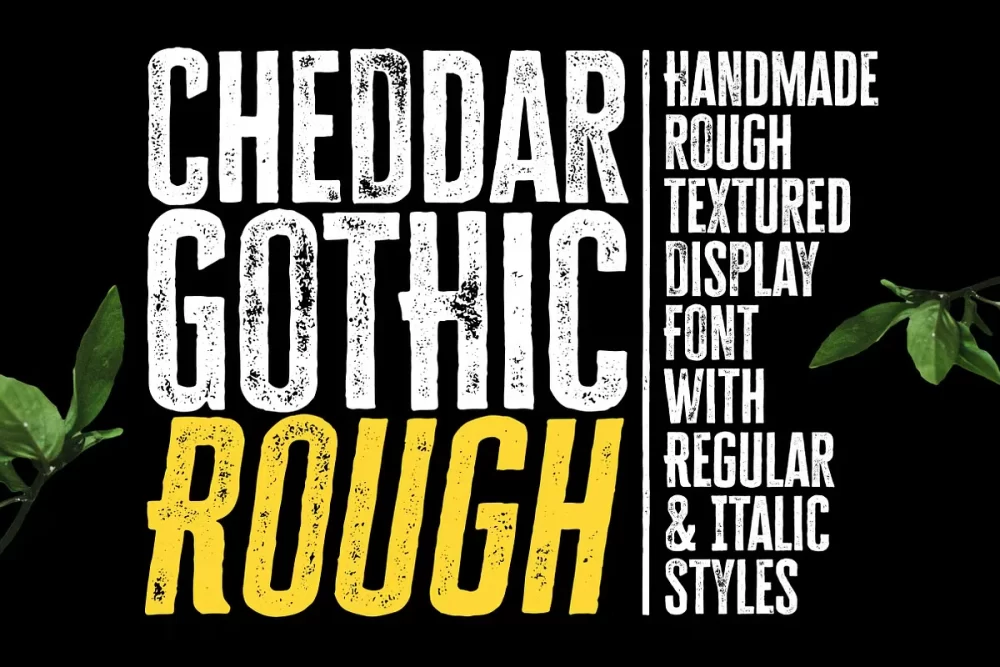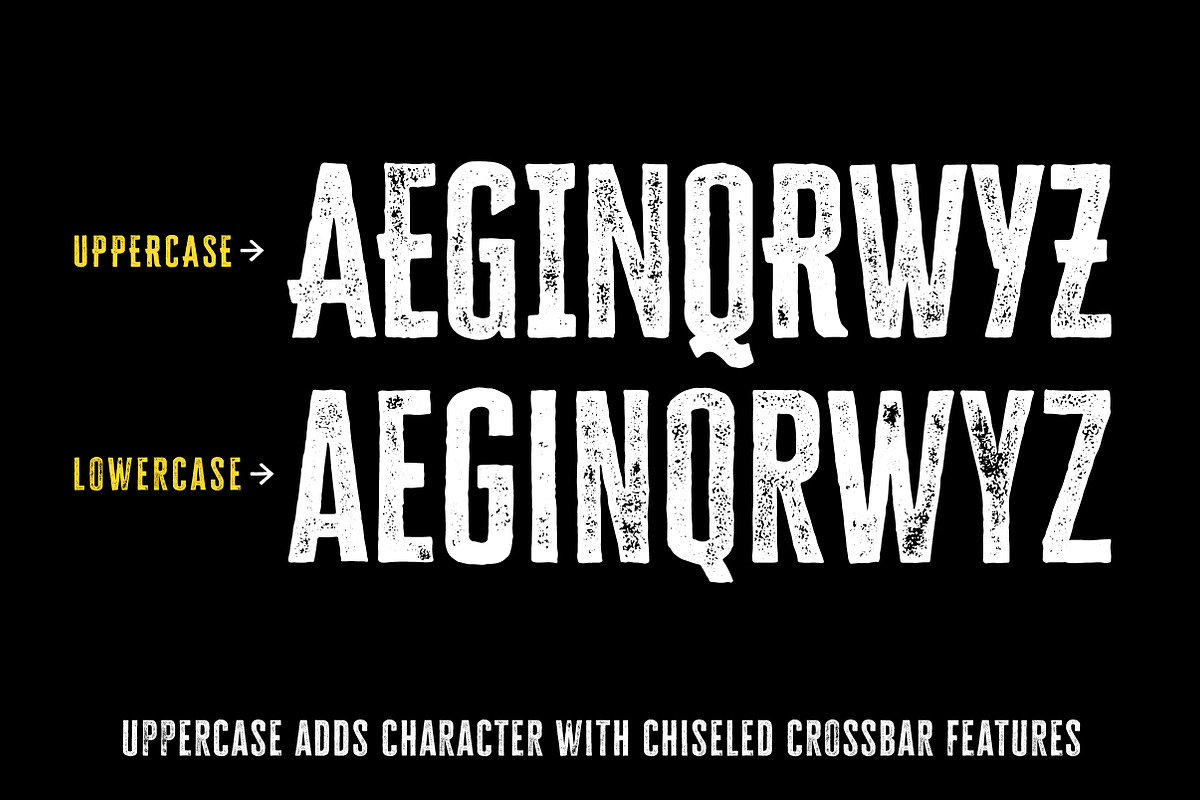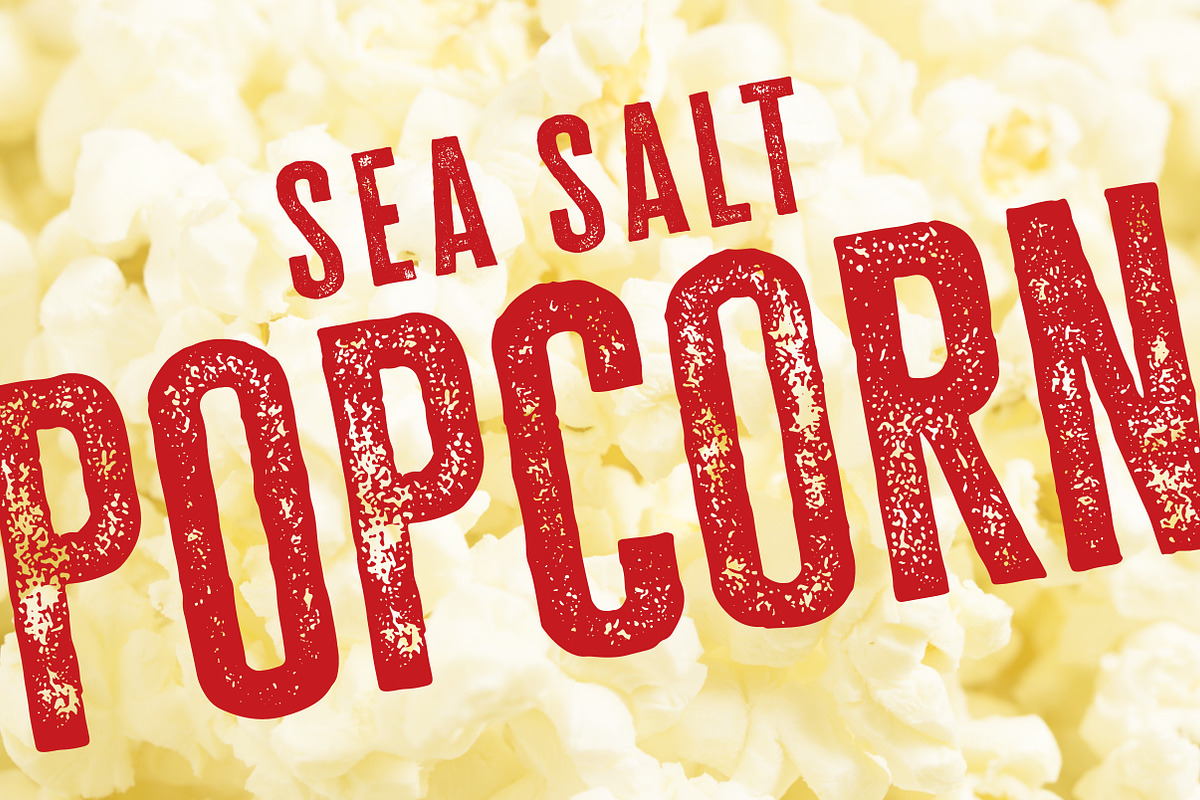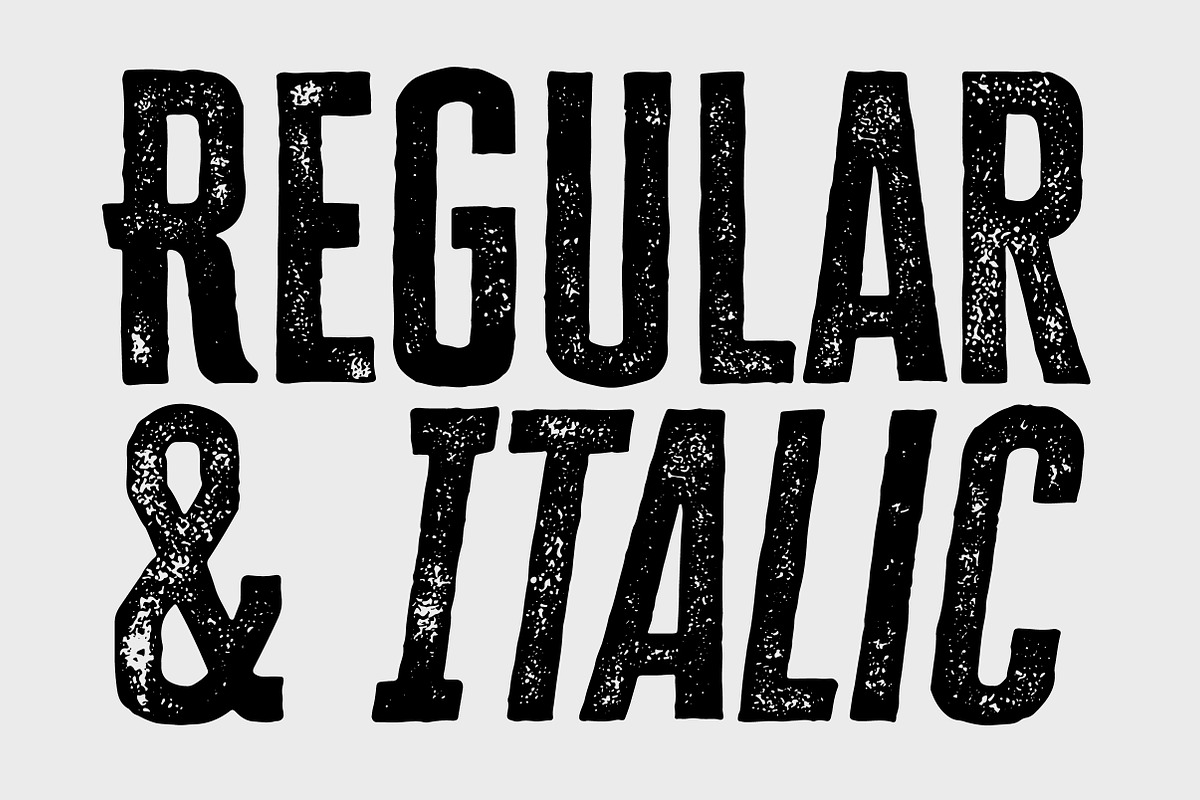
Cheddar Gothic Rough Font
Cheddar Gothic Rough is a hand-drawn, textured display font with regular and italic styles. An all-caps, sans serif typeface with condensed proportions that works great for a variety of display uses.
The uppercase characters add distinction with extended crossbars and chiseled terminals, while the lowercase provides a more classic sans serif appearance.
Carefully drawn for quality and readability, but still rough enough to exhibit the handmade details. Cheddar Gothic Rough is great for display, branding, packaging, advertising, food, sports, titles, and more. This font has extensive Latin language support for Western, Central, and South Eastern European.
• Regular and Italic styles
• All-caps with different upper and lowercase characters
• Simply switch between upper and lowercase for alternates
• Hand-drawn details and texture
• Extensive multilingual character support